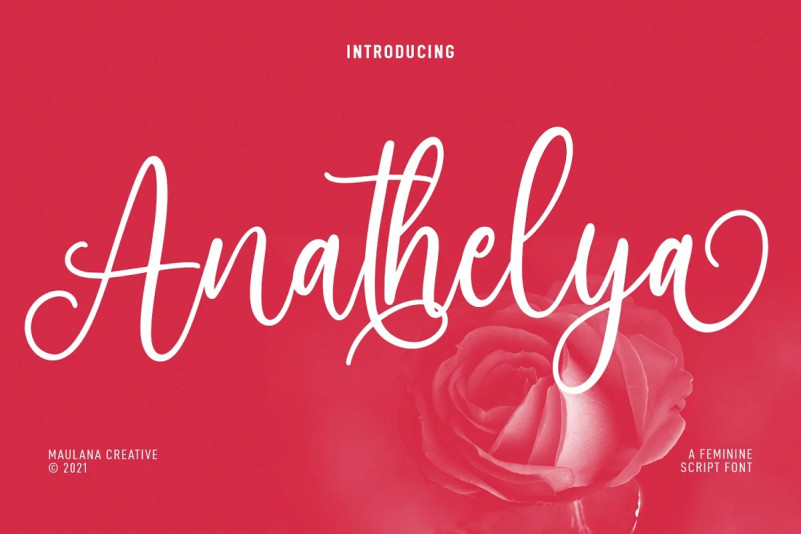
Anathelya Font
Anathelya Font is a cursive feminine script font. With light contrast stroke, fun character with a bit of ligatures and lowercase alternates. To give you an extra creative work. Anathelya font support multilingual more than 100+ language. This font is good for logo design, Social media, Movie Titles, Books Titles, a short text even a long text letter and good for your secondary text font with sans or serif. Make a stunning work with Anathelya font.